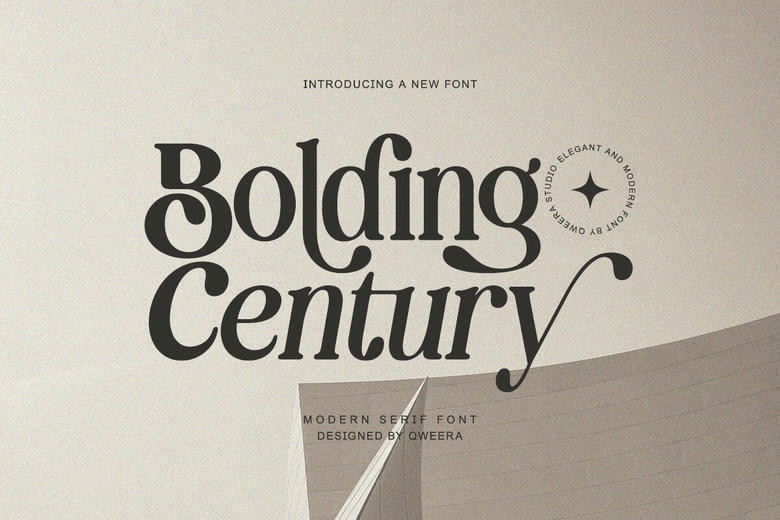
Bolding Century Font
Bolding Century font is a contemporary classy serif typeface that was motivated by the classic design and luxury types. This typeface also makes any layout sophisticated, charming and unique with beautifully curved terminals and bold letterforms.
It is the ideal combination of old-fashioned and new readable and cannot be ignored in high-end branding. This font is meant to be the go-to tool of editorial sophistication and solid brand identity, and is designed to be as bold as it is subtle.
Bolding Century Serif Font